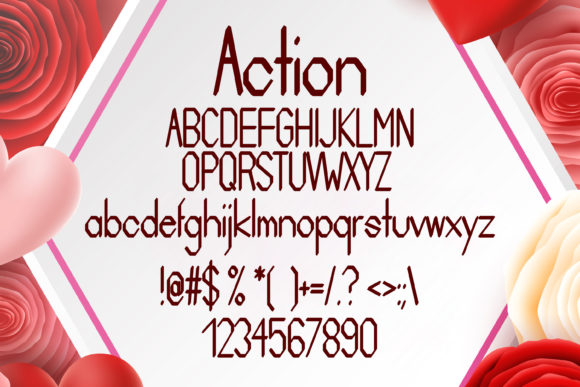
The Ultimate Display Font: Unleashing the Power of Action Font
I’ll never forget the time I was working on a branding project for a trendy new coffee shop. My client wanted a font that would grab attention, convey energy, and look amazing on their merchandise. I spent hours scouring the internet for the perfect font, but nothing seemed quite right. That was until I stumbled upon Action Font. With its rigid lines and pointed corners, it was love at first sight! In this article, I’ll share my experience with Action Font, its features, and how to make the most of it in your designs.
A Personal Review: What I Love About Action Font
So, what makes Action Font so special? Here are a few things that I absolutely love:
• ✨ Versatility: Action Font is a display font that can be used in a variety of contexts, from posters and branding projects to web and app development.
• ✅ Attention-grabbing: The font’s rigid lines and pointed corners make it perfect for grabbing attention and adding a touch of edginess to your designs.
• 💥 High-impact: Action Font is designed to make a statement, and it certainly delivers. It’s perfect for headlines, titles, and any other text that needs to pack a punch.
While Action Font is an amazing display font, there are a few quirks to be aware of:
• 🤔 Legibility at small sizes: As with many display fonts, Action Font can be a bit tricky to read at small sizes. Be sure to test it in your design to ensure it’s legible.
• ⚠️ Limited use cases: While Action Font is incredibly versatile, it’s not suitable for body text or long-form content. Stick to using it for headlines, titles, and short bursts of text.
The Designer Inspiration Behind Action Font
Action Font was designed with one goal in mind: to create a bold and attention-grabbing display font that would add energy and excitement to any design. The font’s creator was inspired by the world of sports and action movies, where bold typography is used to convey power and dynamism. The result is a font that’s perfect for designers who want to add a touch of edginess to their work.
Font Name Action Font
Author DmDesignsStoreArt
What is Action Font best used for? Action Font is best used for headlines, titles, and short bursts of text where you want to grab attention and add a touch of edginess.
Is Action Font suitable for body text? No, Action Font is not suitable for body text. It’s a display font that’s best used for short-form content.
Is Action Font available in different weights and styles? Yes, Action Font is available in different weights and styles, including bold, regular, and italic.